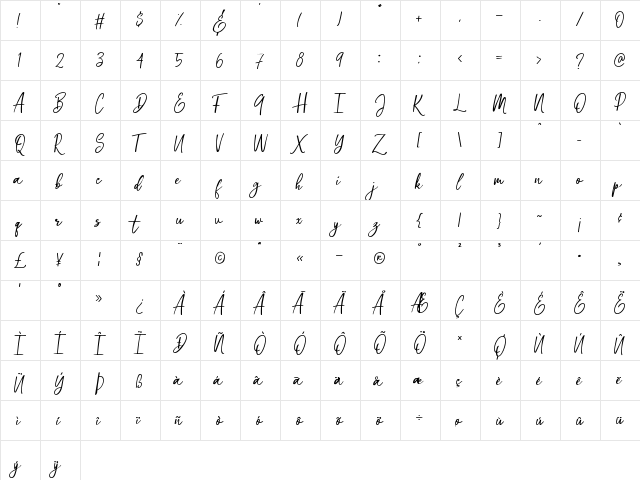
Omarta Regular
Design Context for Omarta Typeface
Omarta is a composed and adaptable typeface that performs quietly and consistently across a wide range of design contexts.